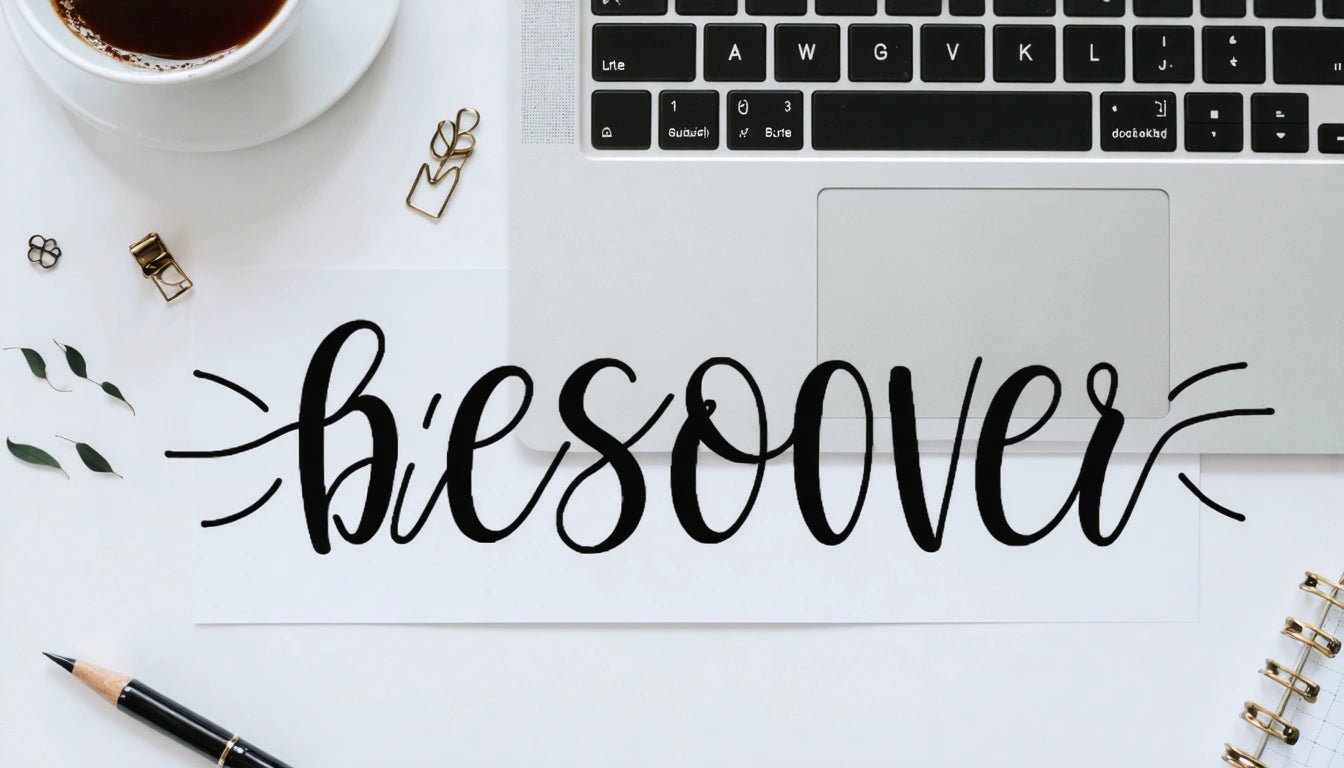
Top 10 Best Cursive Fonts for Word: Popular and Stylish Choices
Cursive fonts add a touch of elegance and personality to any document. Whether you're designing an invitation, creating a certificate, or simply wanting to enhance the visual appeal of your Word documents, selecting the right cursive font can make all the difference. This guide explores the most popular cursive fonts available in Microsoft Word, helping you make informed choices for your projects.
Understanding Cursive Fonts in Word
Cursive fonts mimic handwritten script with connected letters, offering a flowing, elegant appearance. Microsoft Word includes several built-in cursive options, while others can be downloaded and installed. Understanding the different styles of cursive fonts helps you select one that conveys the right tone for your document.
Cursive fonts generally fall into several categories:
- Formal script (elegant and traditional)
- Casual script (relaxed and friendly)
- Handwriting script (mimicking natural penmanship)
- Decorative script (stylized and artistic)
Top 10 Best Cursive Fonts for Word
1. Brush Script MT
A classic casual script font that comes pre-installed with Word, Brush Script MT mimics handwritten text created with a brush. It's perfect for informal invitations and creative projects.
2. Lucida Handwriting
Another standard Word font, Lucida Handwriting offers excellent readability while maintaining an authentic handwritten appearance. It's ideal for longer text passages where legibility is important.
3. Monotype Corsiva
This elegant font blends calligraphy with casual handwriting, making it versatile for both formal and semi-formal documents. It's one of the most popular cursive fonts for wedding invitations.
4. Edwardian Script ITC
A highly formal and decorative script, Edwardian Script ITC is perfect for elegant invitations, certificates, and headers. Its elaborate flourishes convey luxury and sophistication.
5. Freestyle Script
With its natural flow and moderate formality, Freestyle Script works well for greeting cards and casual correspondence. It strikes a balance between elegance and approachability.
6. Segoe Script
A modern cursive font with excellent legibility, Segoe Script is versatile enough for both headlines and short paragraphs. Its clean lines make it a favorite for contemporary designs.
7. Bradley Hand ITC
This font mimics natural handwriting with a pen, offering a personal touch without excessive flourishes. It's ideal for personal notes and casual documents.
8. Kunstler Script
Highly ornate and formal, Kunstler Script is perfect for wedding invitations, formal announcements, and certificates. Its dramatic flourishes create a luxurious impression.
9. Script MT Bold
With its bold strokes and good readability, Script MT Bold works well for headlines and emphasis text. It offers elegance without sacrificing clarity.
10. Vivaldi
This italic script font features dramatic thick-to-thin transitions and elaborate capital letters. Vivaldi is ideal for formal invitations and decorative headings where making an impression is key.
Choosing the Right Cursive Font for Your Project
When selecting from the best cursive fonts in Word, consider these factors:
- Readability: Will your audience be able to easily read the text?
- Tone: Does the font match the formality level of your document?
- Purpose: Is the font appropriate for headers, body text, or accents?
- Printing considerations: Will the font print clearly at your chosen size?
For professional documents requiring a touch of elegance, professional script fonts like Monotype Corsiva offer the perfect balance of style and legibility. For more creative projects, decorative options like Edwardian Script might be more suitable.
Pairing Suggestions for Cursive Fonts
For maximum impact, pair cursive fonts with complementary non-cursive options:
- Monotype Corsiva + Calibri for elegant business documents
- Brush Script MT + Arial for creative presentations
- Lucida Handwriting + Georgia for readable yet stylish newsletters
- Edwardian Script ITC + Times New Roman for formal invitations
These combinations balance the decorative nature of cursive with the readability of standard fonts. Finding the perfect font pairing enhances your document's visual hierarchy and professional appearance.
As digital tools become more sophisticated, we're seeing a renaissance in custom typography. Modern font design is increasingly focused on creating cursive options that maintain their elegance while offering improved digital readability.
Whether you're creating professional documents, designing invitations, or developing branded materials, the best cursive font for your Word project depends on your specific needs. By understanding the characteristics and appropriate uses of popular cursive fonts, you can make choices that enhance your message and delight your audience.